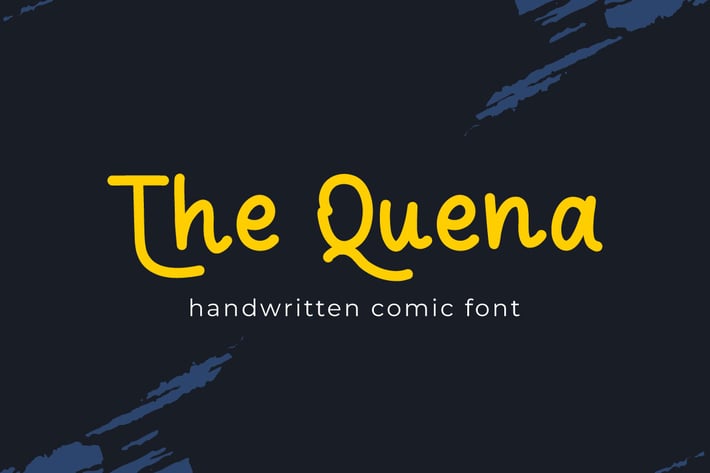
The Quena - Handwritten Comic Font
Introducing The Quena a vibrant and playful handwritten font that effortlessly combines the charm of comic book style with the uniqueness of a personal signature. This font is designed to capture the spontaneity and energy of hand-drawn lettering, making it perfect for projects that demand a touch of whimsy and personality.
Whether you're designing a comic book cover, crafting a unique logo, or spicing up a casual blog, The Quena offers a fresh and lively aesthetic. Its approachable, fun-loving nature makes it a go-to choice for projects aimed at younger audiences or those looking to inject a playful, informal tone into their designs.